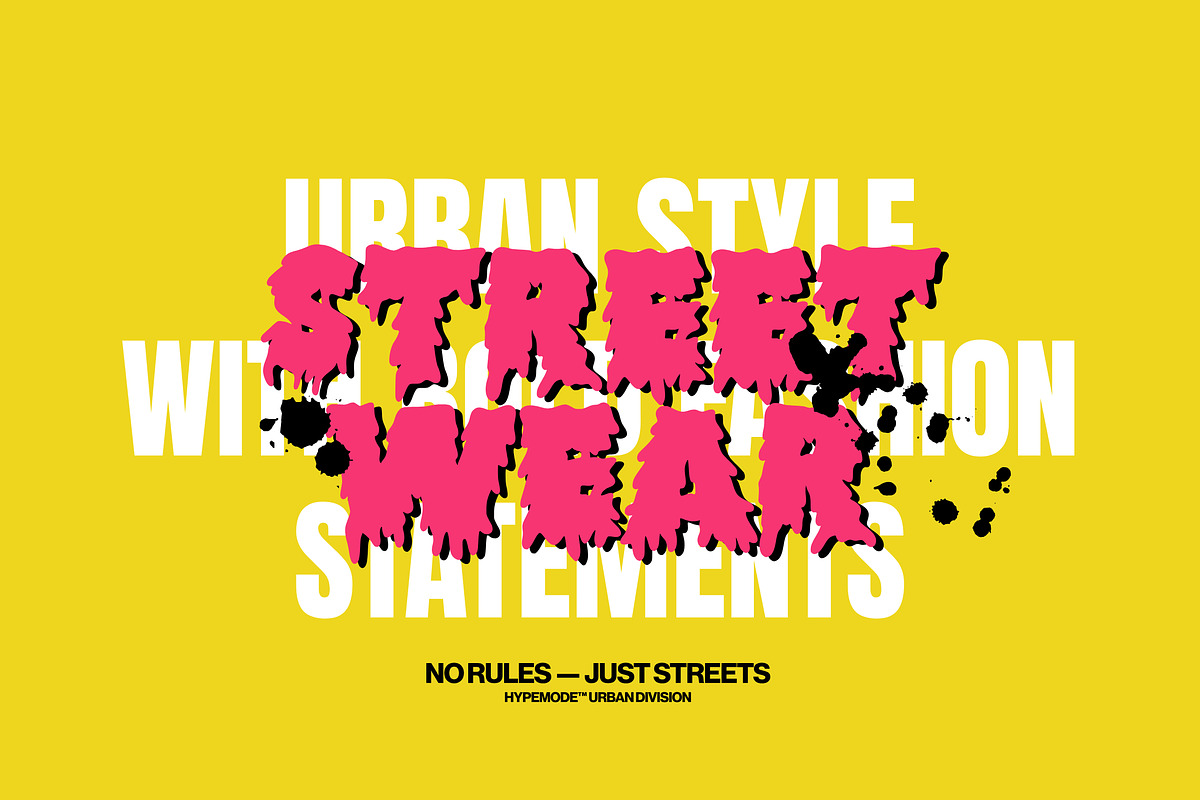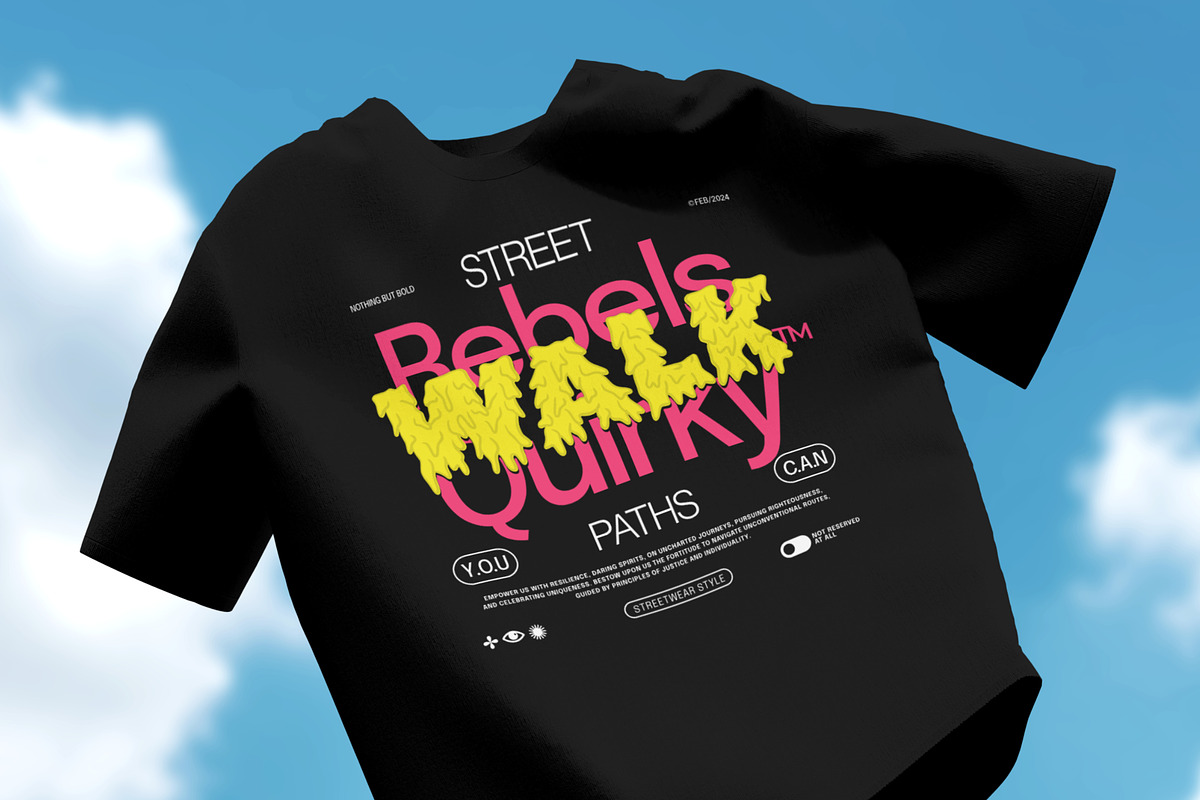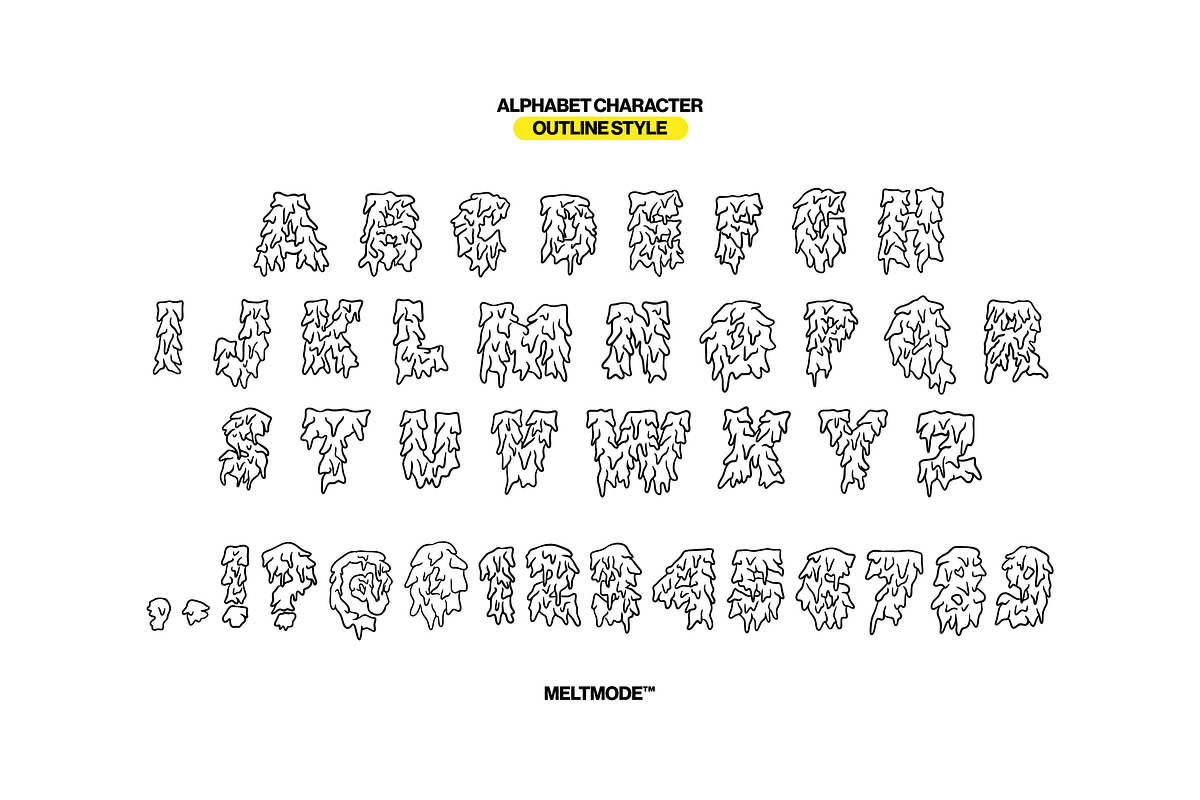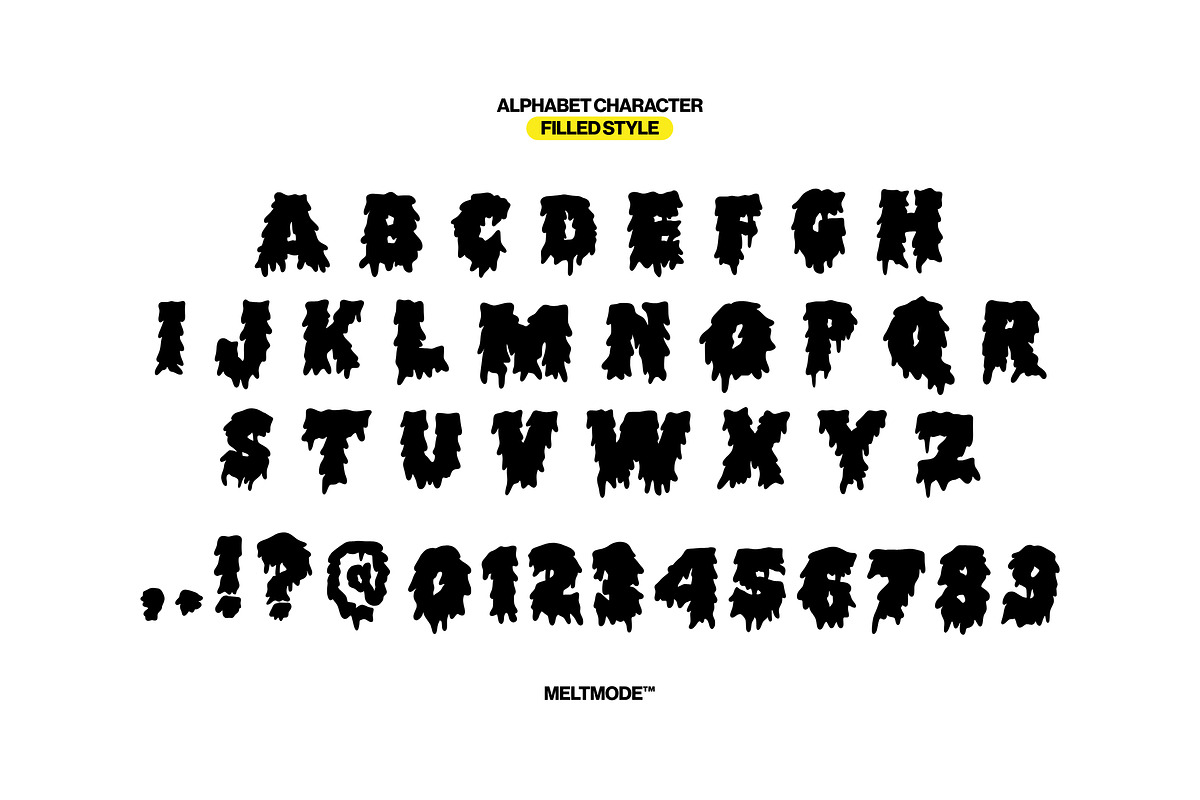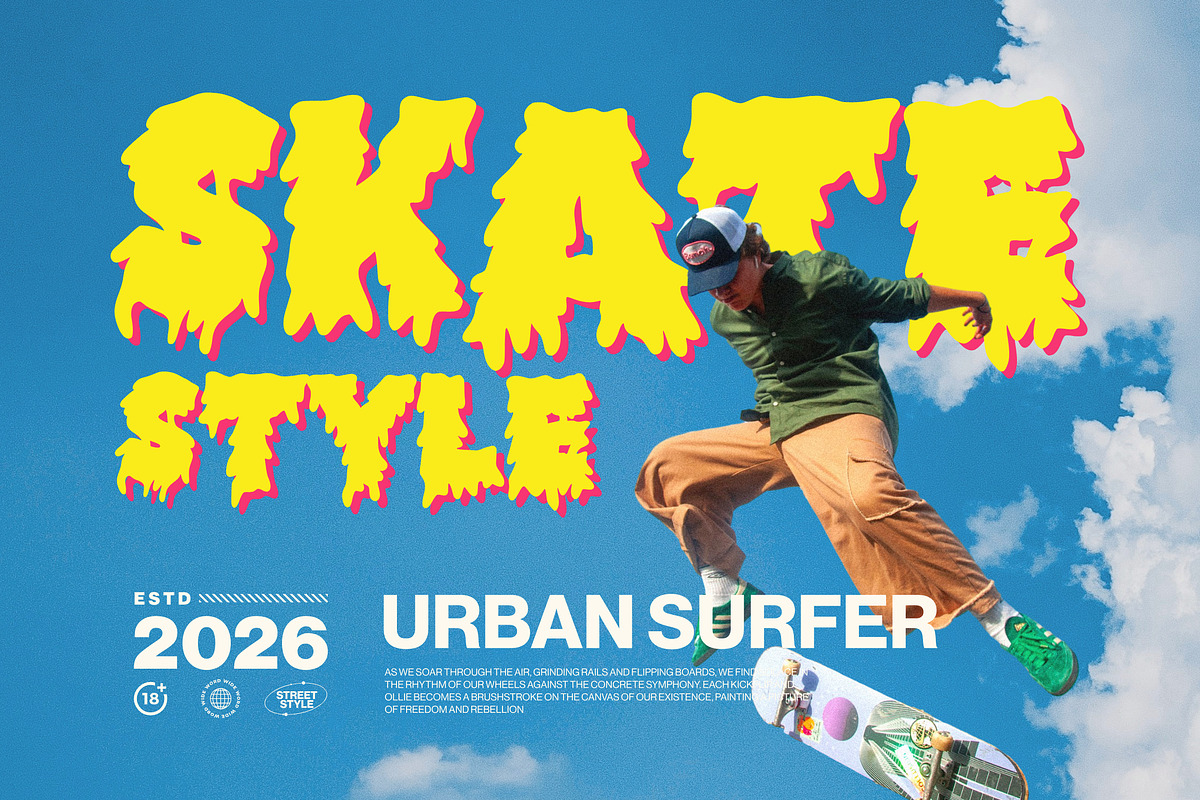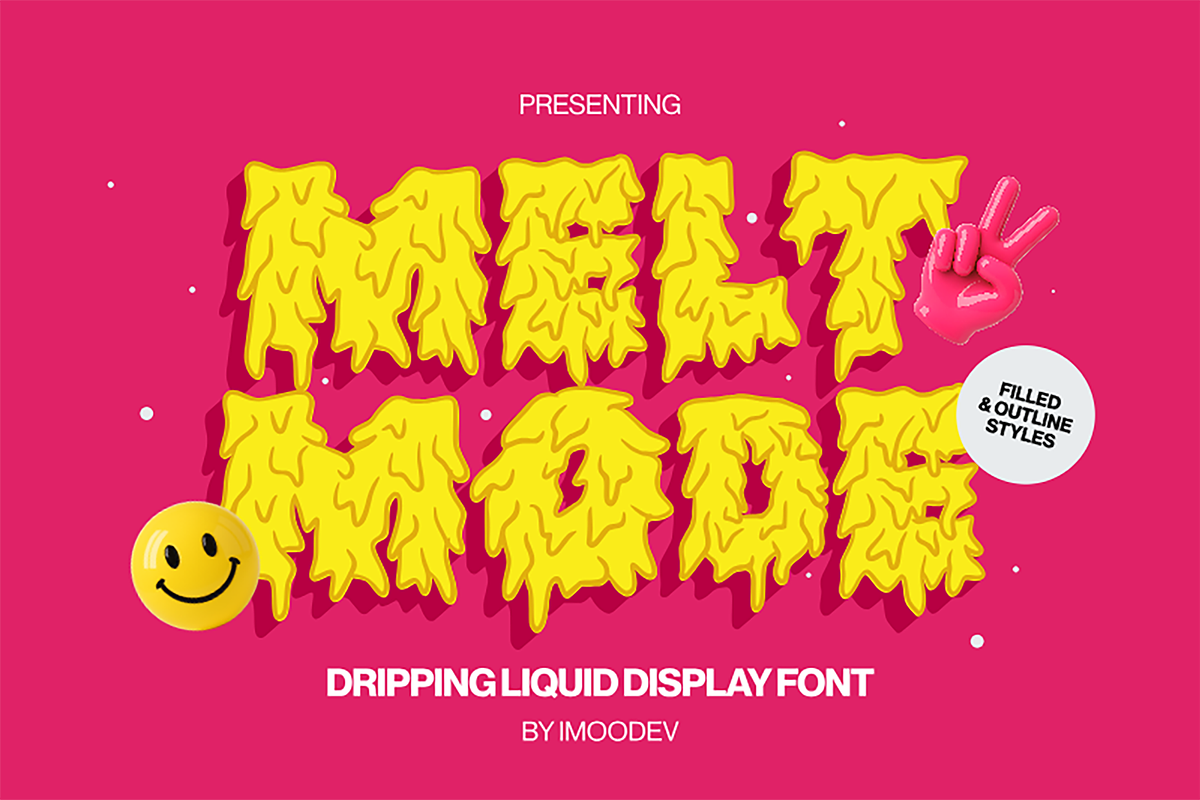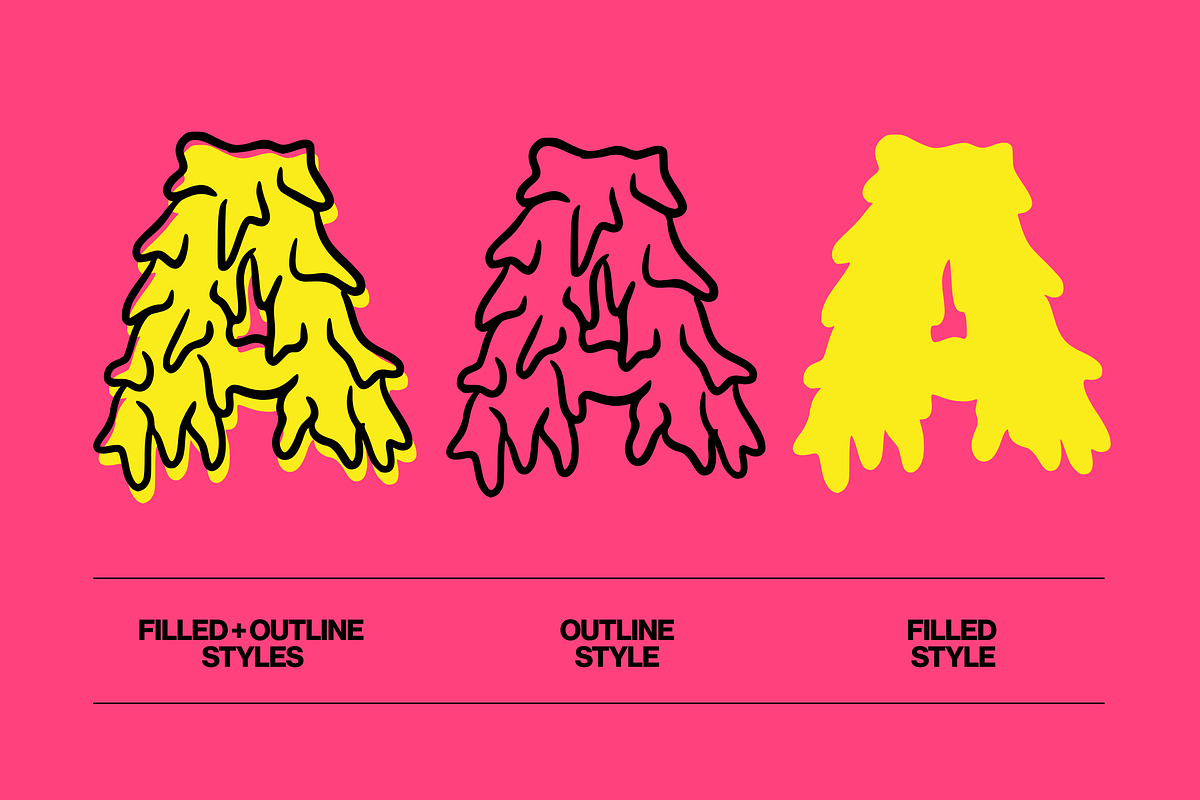
Meltmode - Dripping Liquid Display
Meltmode is a dripping liquid experimental display font designed to bring a high energy, "melting" aesthetic to your creative projects, this font features thick, drips that give and a fluid, liquid like structure, this font captures the raw essence of street culture, slime aesthetics, and psychedelic visuals.
This typeface comes in two distinct styles Filled and Outline, which can be used independently or layered together to create a dynamic, three dimensional effect. Whether you're designing for streetwear, skate culture graphics, an edgy music poster, or bold editorial headlines, Meltmode offers a rebellious, "no rules" vibe that stands out on any canvas.
- Two Distinct Styles: Includes Filled and Outline.
- Urban Aesthetic: Perfectly suited for skatewear, Y2K, tshirt designs, posters, album covers, branding, and social media content.
- Uppercase Characters.
- PUA Encoded Characters.
- Numerals and Punctuations.
- Alternates and Ligatures.
- Multilingual Support.